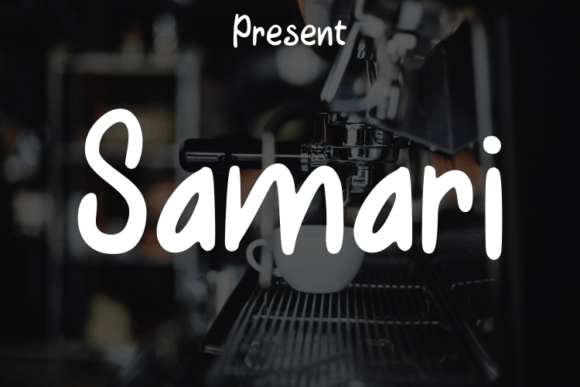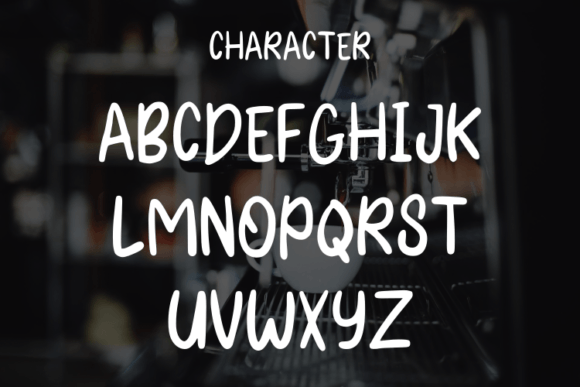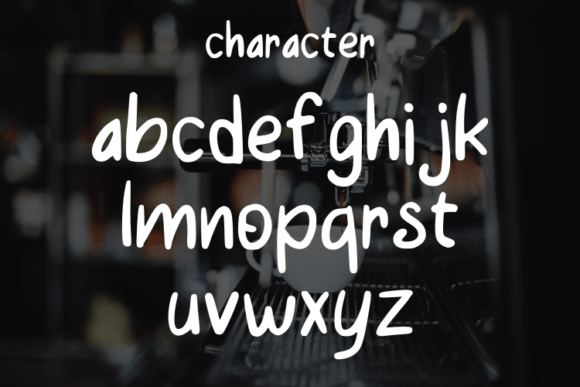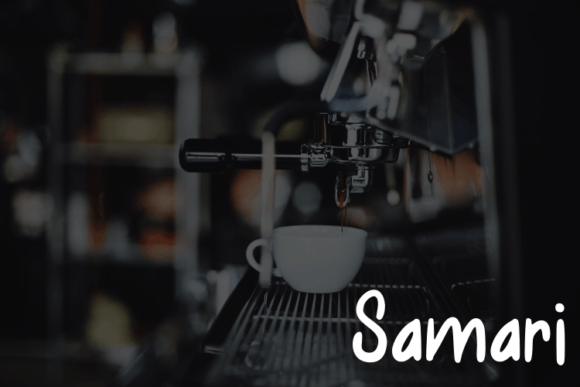
About Samari Font
Samari is a script typeface characterized by its simple style and modern look. This font offers versatility that makes it an excellent choice for a wide range of design applications. Its clean and contemporary appearance is particularly well-suited for creating an elegant and luxurious aesthetic across various projects. Whether you’re working on crafting logos, designing titles for books or movies, establishing a sophisticated identity for fashion brands, curating stylish magazines, enhancing clothing labels, creating distinctive fonts, or adding a touch of flair to quotes, Samari provides a refined foundation.
The simplicity of Samari contributes to a timeless quality, making it adaptable to different design contexts. Its modern aesthetic ensures that it can seamlessly fit into contemporary design trends, creating a cohesive and polished look across diverse applications.
Samari’s script style adds a touch of sophistication and handcrafted charm to your designs. Whether utilized for logos or titles, it brings a unique and stylish element that enhances the overall visual appeal. Its modern appearance ensures that it remains relevant and visually impactful in today’s design landscape.
In summary, Samari is more than just a script typeface; it’s a design asset that combines simplicity and modernity to evoke an elegant and luxurious atmosphere. Embrace its versatility to create impactful and visually appealing content across a variety of creative projects.